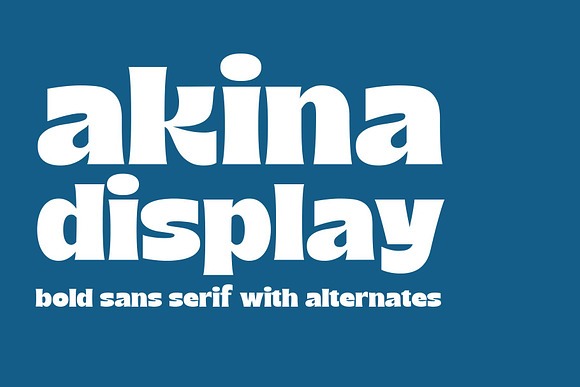
Akina Display Font
About Akina Display
Introducing Akina, a bold serif font inspired by the charm of vintage-pop art. Its thick, playful curves and subtle beak endings create a relaxed yet fun vibe, bringing energy and warmth to your designs.